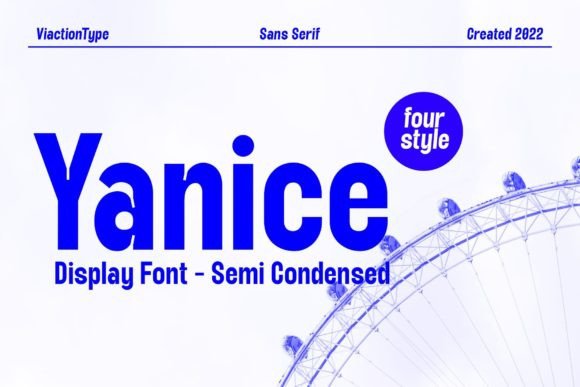
Indulge in the Enchanting Realm of Typography with Yanice Font: Your Gateway to Design Excellence
Embark on a typographic odyssey with Yanice Font, a semi-condensed sans serif masterpiece meticulously crafted by Viaction Type.Co. As a font family that radiates both strength and ethereal beauty, Yanice is poised to captivate your audience and elevate your design projects to unprecedented heights.
Step into a world where modernity and industrial aesthetics converge seamlessly, where Yanice's sharp, clean lines exude an aura of sophistication and innovation. With its assertive presence, this font commands attention, making it the perfect choice for display boards, headlines, and any design element yearning for a touch of futurism and boldness.
Yanice's versatility knows no bounds. Its clean, sans serif structure lends itself effortlessly to a myriad of design styles, from sleek and minimalist to edgy and avant-garde. Whether you're crafting captivating logos, eye-catching posters, or dynamic web designs, Yanice has the power to transform your creative vision into an unforgettable reality.
Unlock the gateway to design excellence with Yanice Font. Its meticulously crafted curves and angles create a visual symphony that dances before the eyes, leaving an indelible impression on every beholder. Experience the allure of a font that breathes life into your designs, igniting a flame of creativity that will leave you spellbound.
Yanice Font: Your Key to Unlocking Typographic Brilliance
- A font family of unparalleled strength and grace
- A semi-condensed sans serif masterpiece that commands attention
- Perfect for display boards, headlines, and designs seeking a futuristic touch
- Its versatility knows no bounds, adapting seamlessly to diverse design styles
- Its clean lines and sharp angles create a visual symphony that captivates
- Ignite your creativity and leave an indelible impression on your audience
Elevate your design journey to new heights with Yanice Font. Its exceptional craftsmanship and captivating presence are sure to leave a lasting legacy in the world of typography.